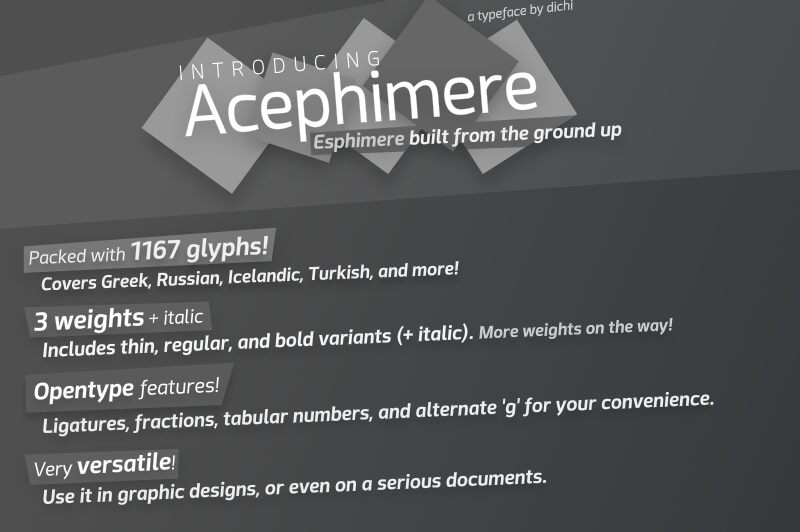
Acephimere
Acephimere is a very versatile font that can be used in graphic designs and documents. With a wide range of characters, Acephimere will help you beautify your projects, all around the world.
This update includes :
- Added thin weight + italic.